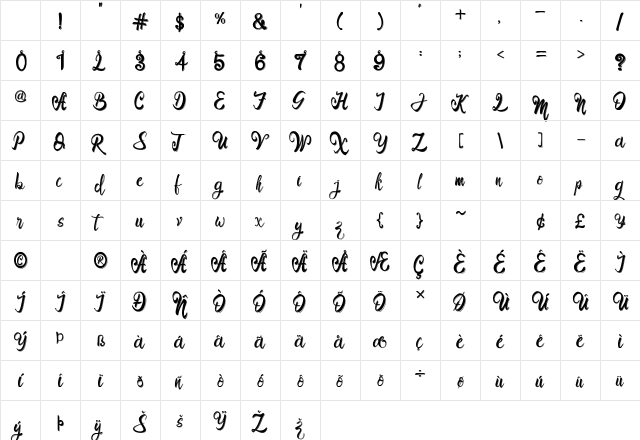
Complete Bro Rintto Regular glyph index. Displaying only characters natively supported by Bro Rintto Regular font.
Bro Rintto is a composed and adaptable typeface that performs quietly and consistently across a wide range of design contexts.
Who designed the Bro Rintto Regular font?
This font was published by Kotak Kuning Studio. Check the technical specs section for copyright and designer details.